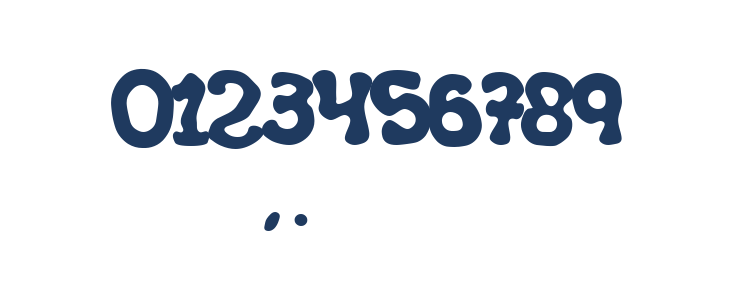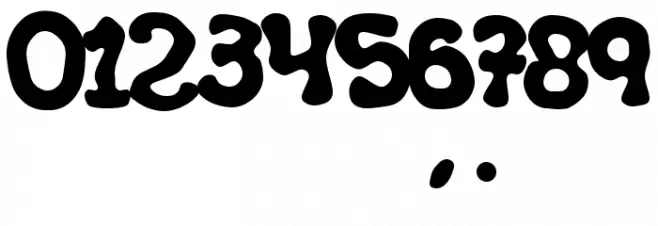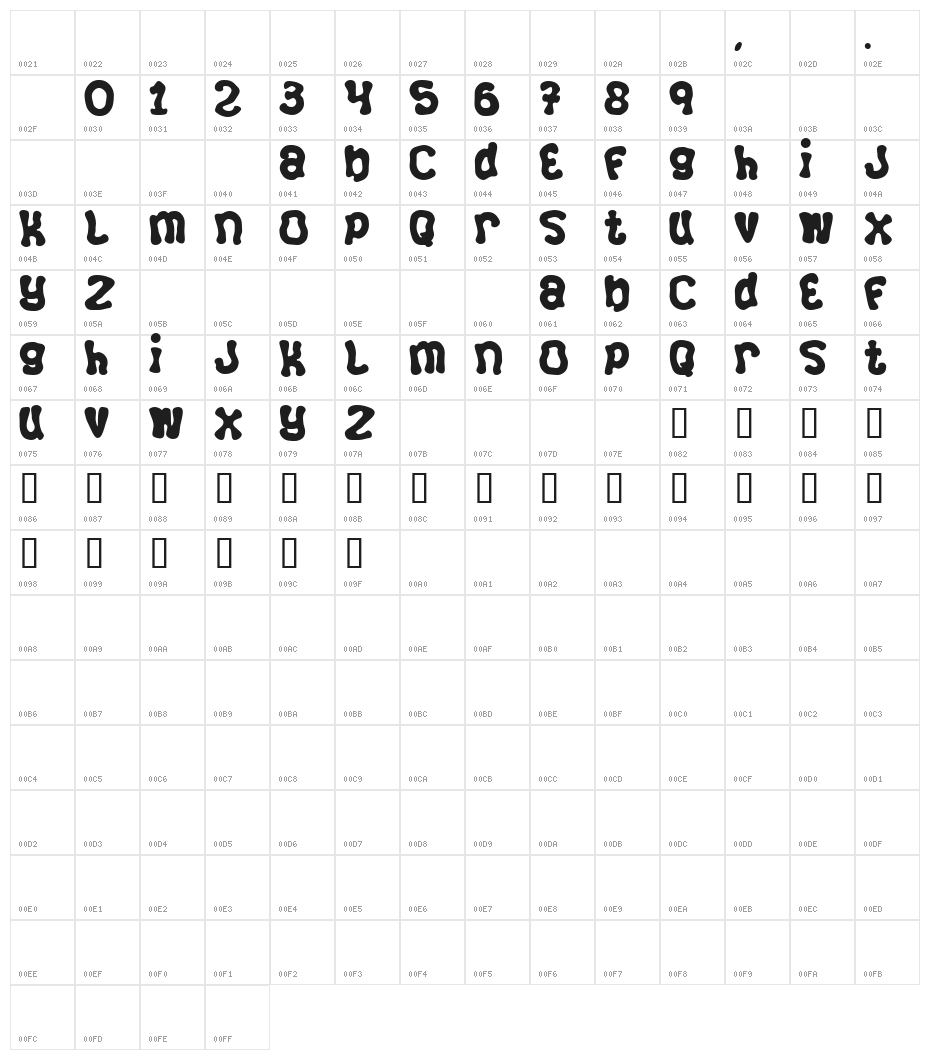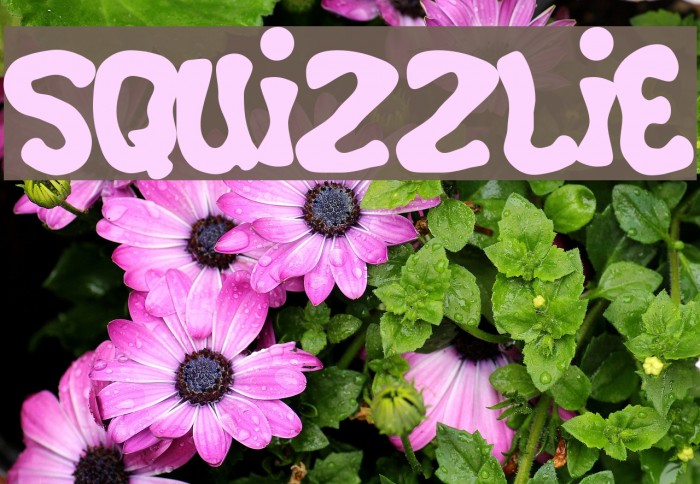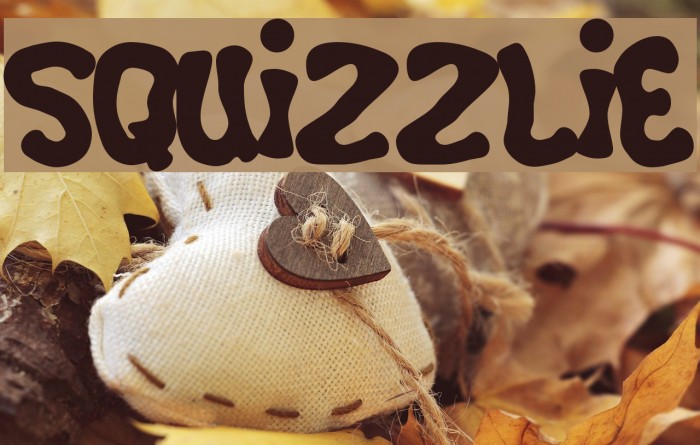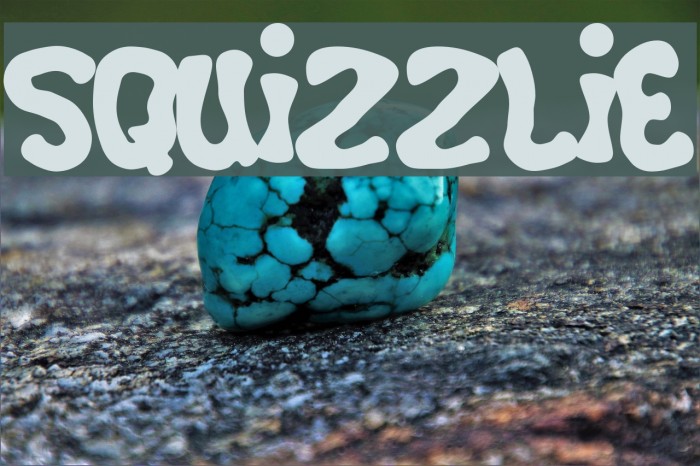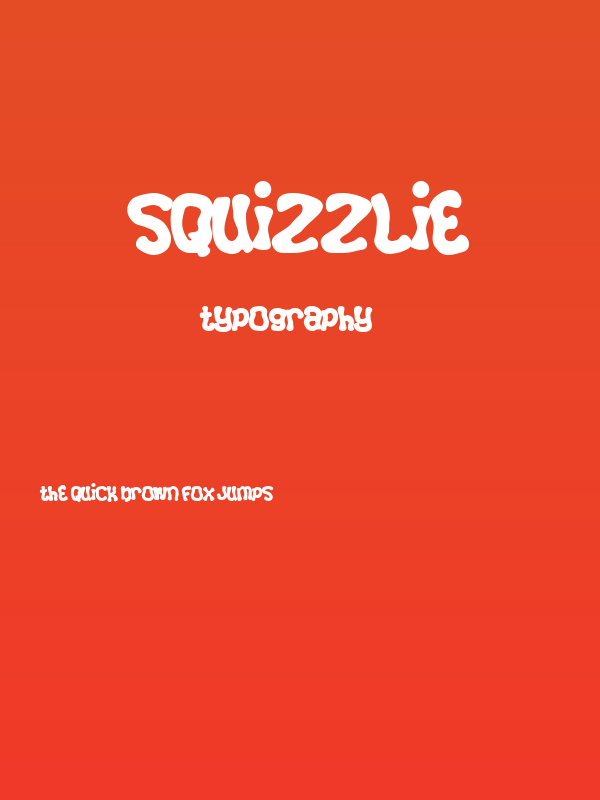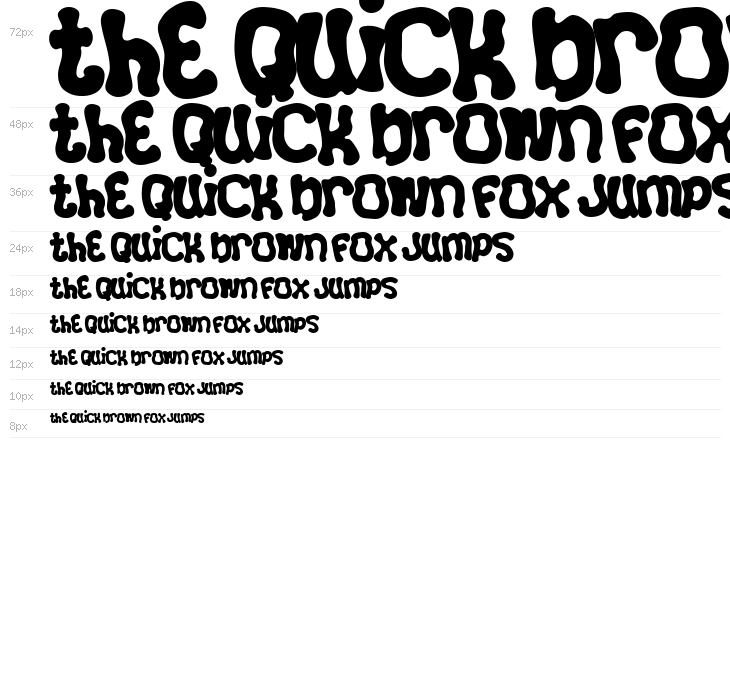
Squizzlie Font
Squizzlie Description
This playful and bold font features thick, rounded strokes that create a bubbly and whimsical appearance. The characters are uniquely shaped with a consistent weight throughout, giving it a cohesive and friendly look. The font's style is reminiscent of cartoonish or comic lettering, making it ideal for designs that require a fun and informal touch. Its boldness ensures high visibility, while the rounded edges add a sense of approachability and warmth. The font is versatile enough to be used in various creative projects, from children's books to playful branding materials.
A playful, bold font with rounded, bubbly characters ideal for fun designs from Cartoon fonts.
- Proposed Projects: Children's books, playful branding, comic strips, party invitations, and casual posters.
- Overall Style: Playful, Whimsical